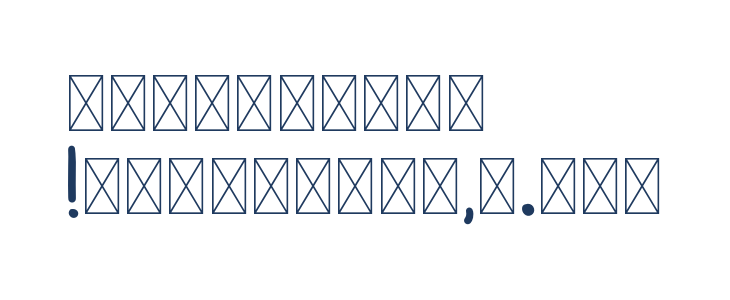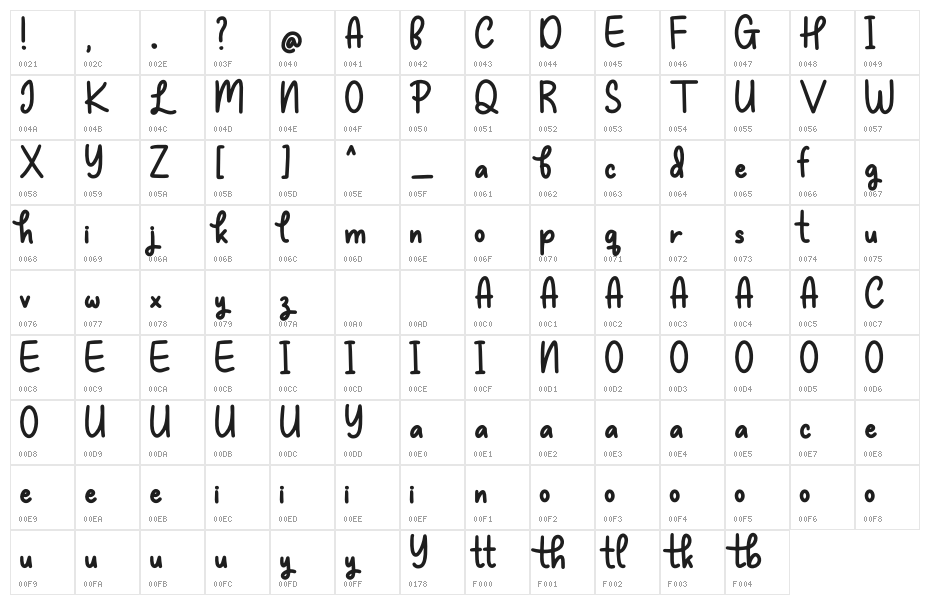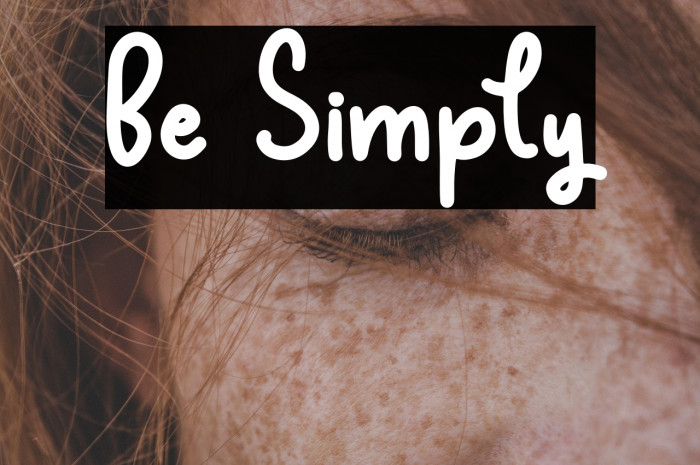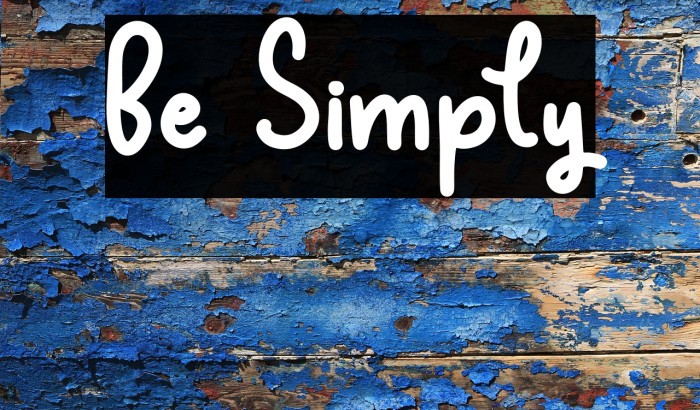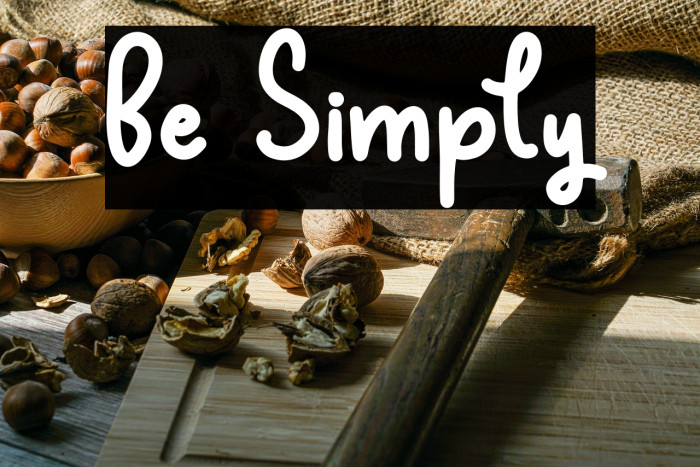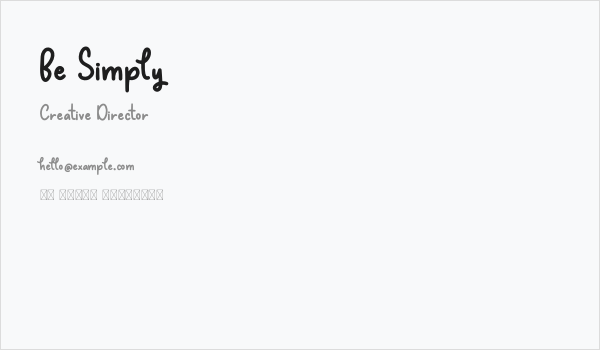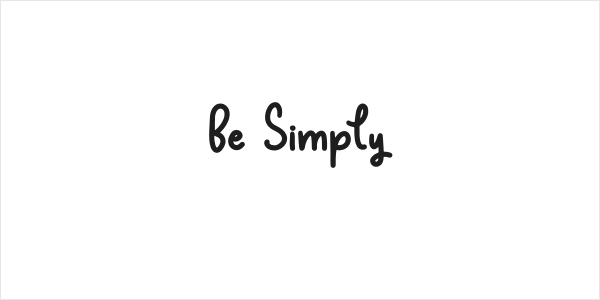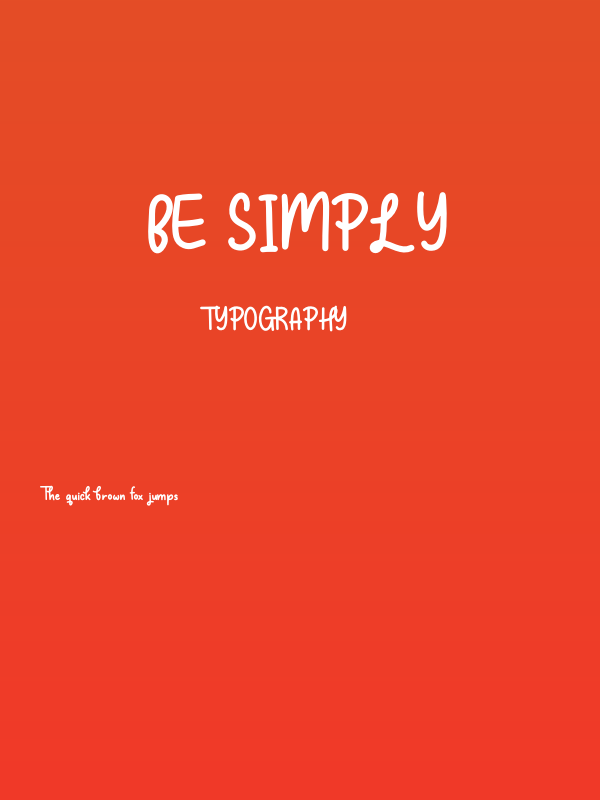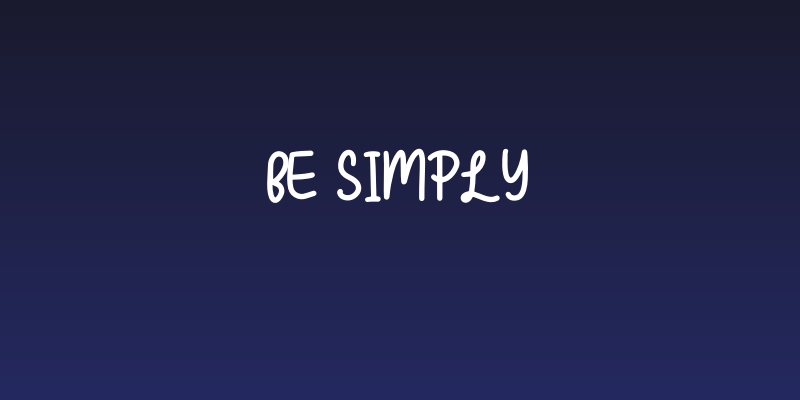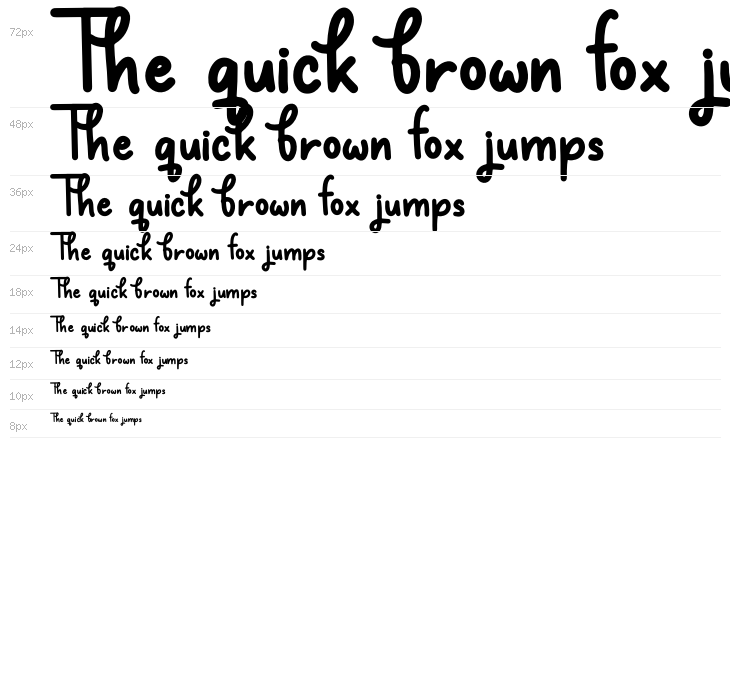
Be Simply Font
Be Simply Description
This playful and casual font features a handwritten style with smooth, rounded edges and a friendly appearance. The uppercase letters are slightly taller and more elongated, while the lowercase letters maintain a consistent height, adding to the font's approachable feel. The strokes are uniform in width, providing a clean and modern look. This font is versatile, suitable for a variety of creative projects that require a personal touch. The spacing between characters is balanced, ensuring readability while maintaining its unique charm.
| Overall Style | Casual |
| Use Case | Logos, Headlines, Informal Text |
| Proposed Projects | Ideal for greeting cards, children's books, casual branding, and social media graphics. |